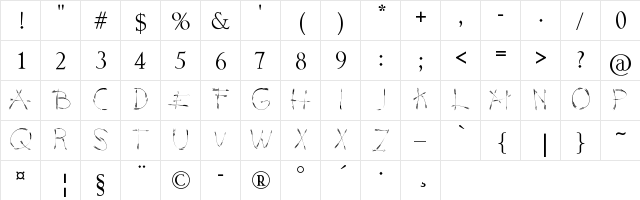
PIJL Regular Font Preview
PIJL Regular
PIJL Regular Font Details
Design Context for PIJL Typeface
PIJL is a composed and adaptable typeface that performs quietly and consistently across a wide range of design contexts.